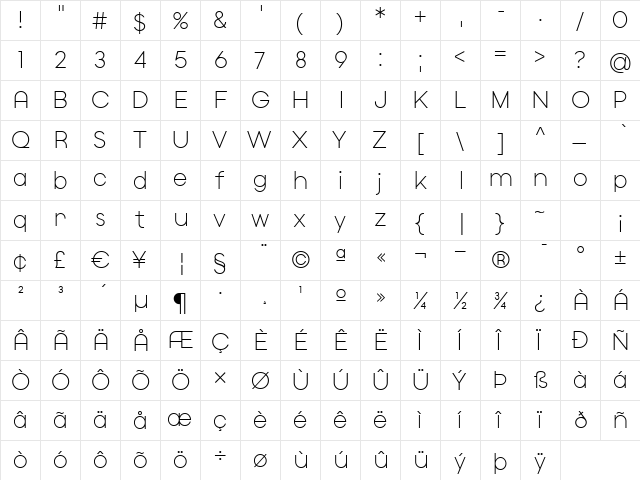
CK Roxy Regular
Design Context for CK Roxy Typeface
CK Roxy takes a measured approach to typography — its balanced proportions and neutral character make it a reliable workhorse for both digital and print work.